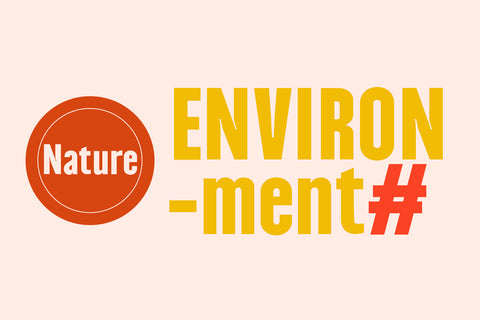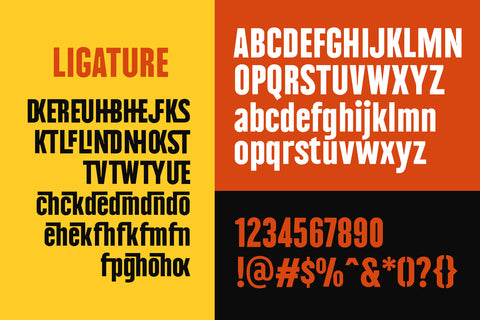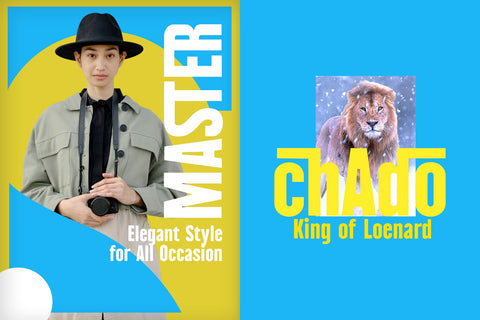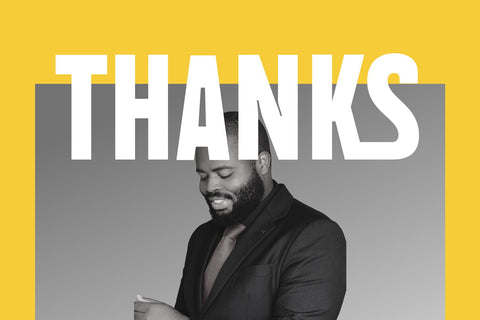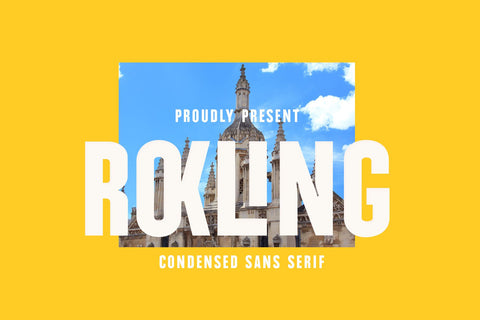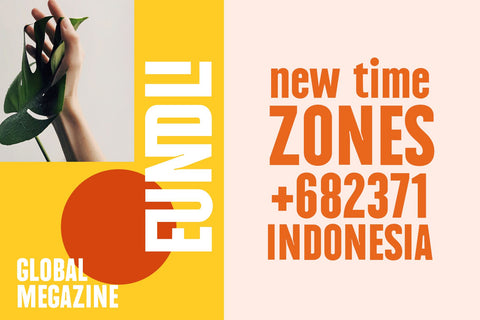
Rokling
Rokling is One of the Modulus series of interchangeable type styles built around a common framework. A general purpose design with squared forms and a simplified finish, Rokling delivers excellent clarity on-screen and is doubly effective in print. The key features are its simple utility and unremarkable appearance. Where most fonts exert their individuality. Rokling also has many ligature for make new value for design